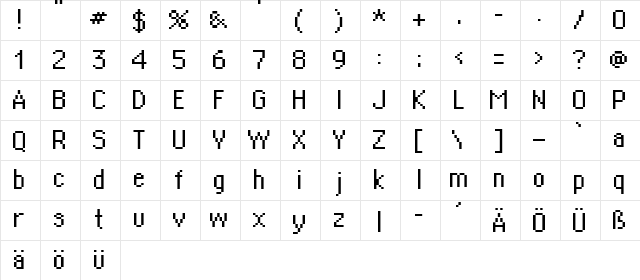
supertext _high Free Font
supertext _high
Style: _high
supertext Family
supertext _high
Design Context for supertext
supertext is a composed and adaptable typeface that performs quietly and consistently across a wide range of design contexts.